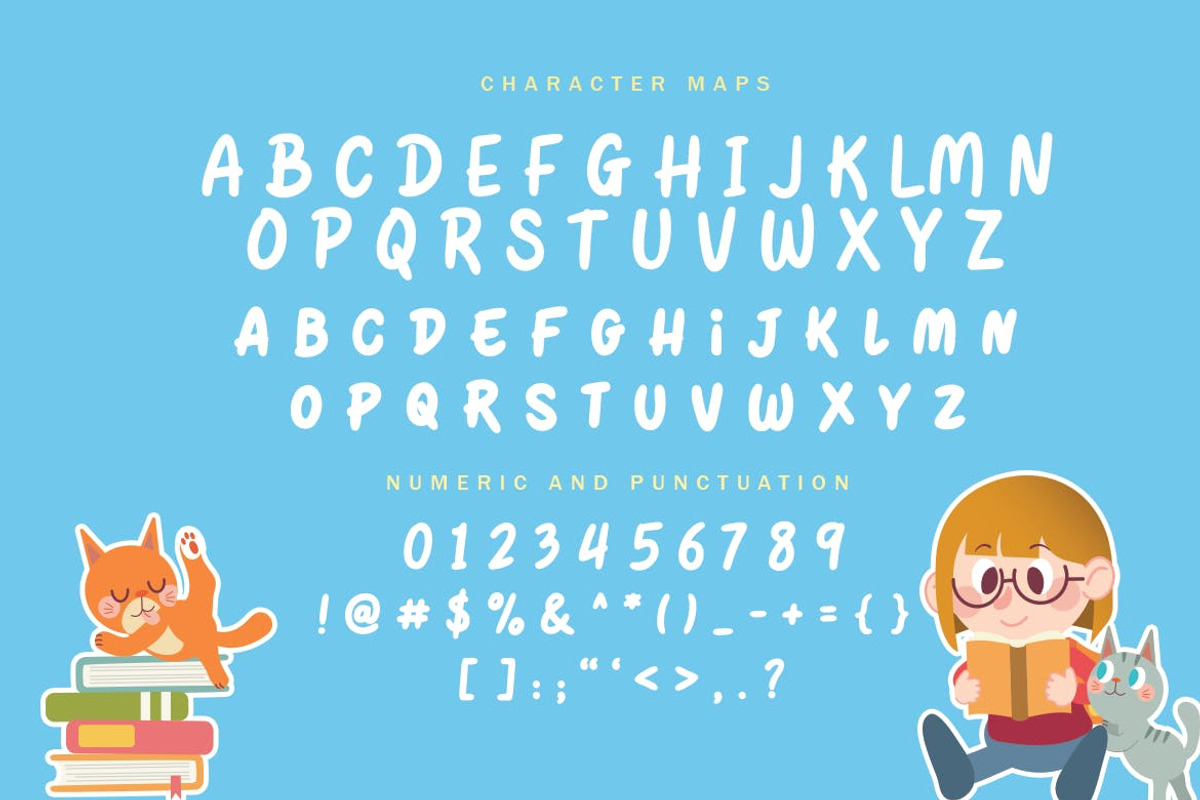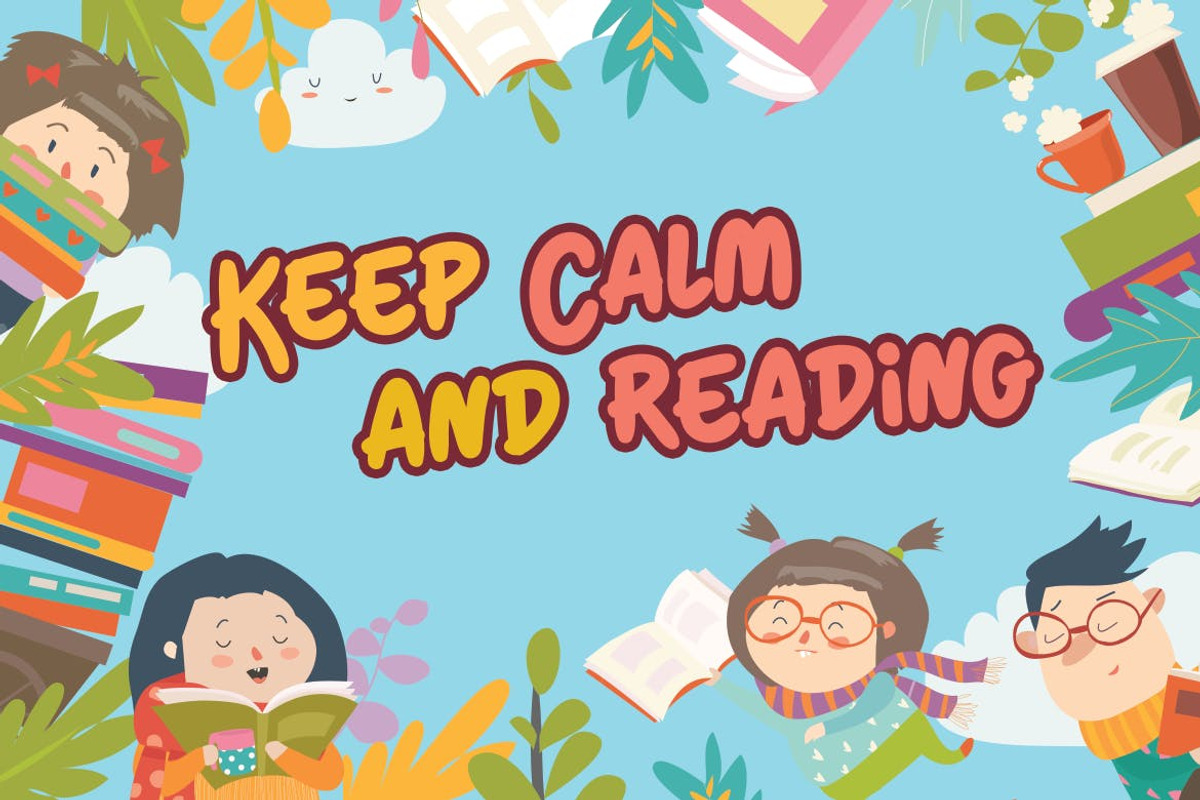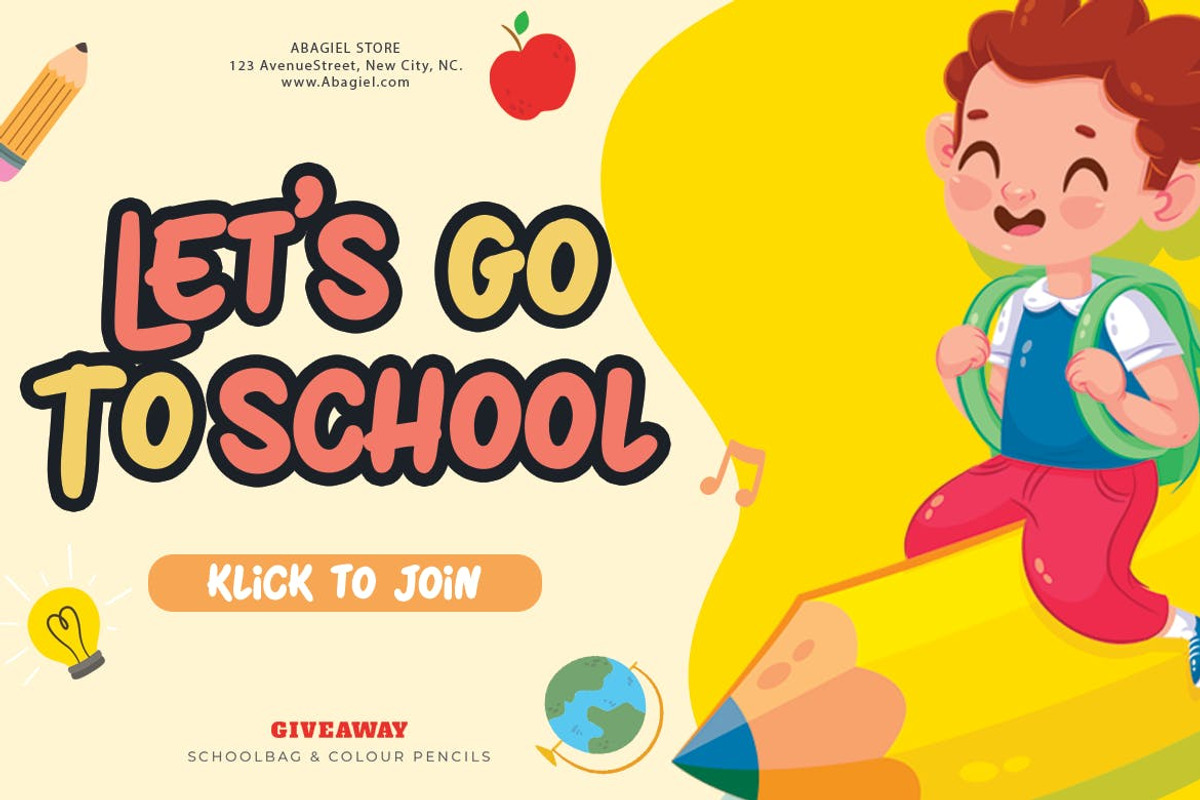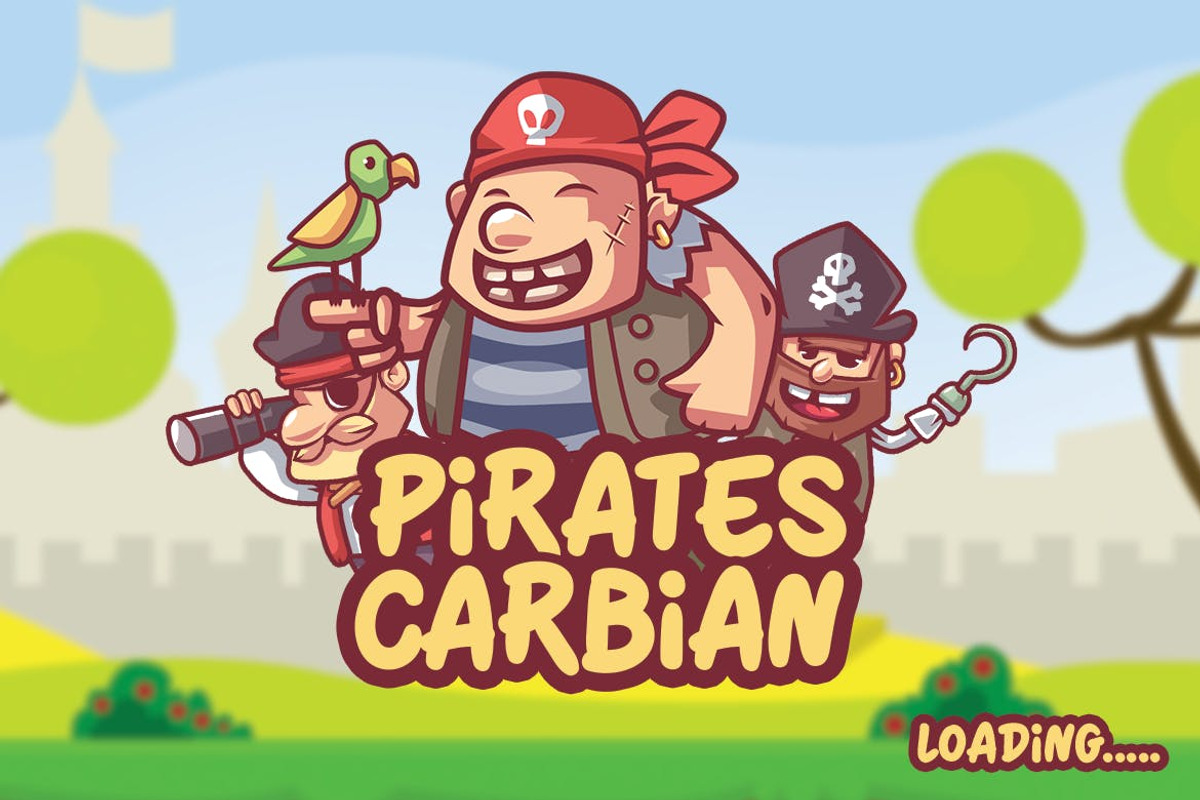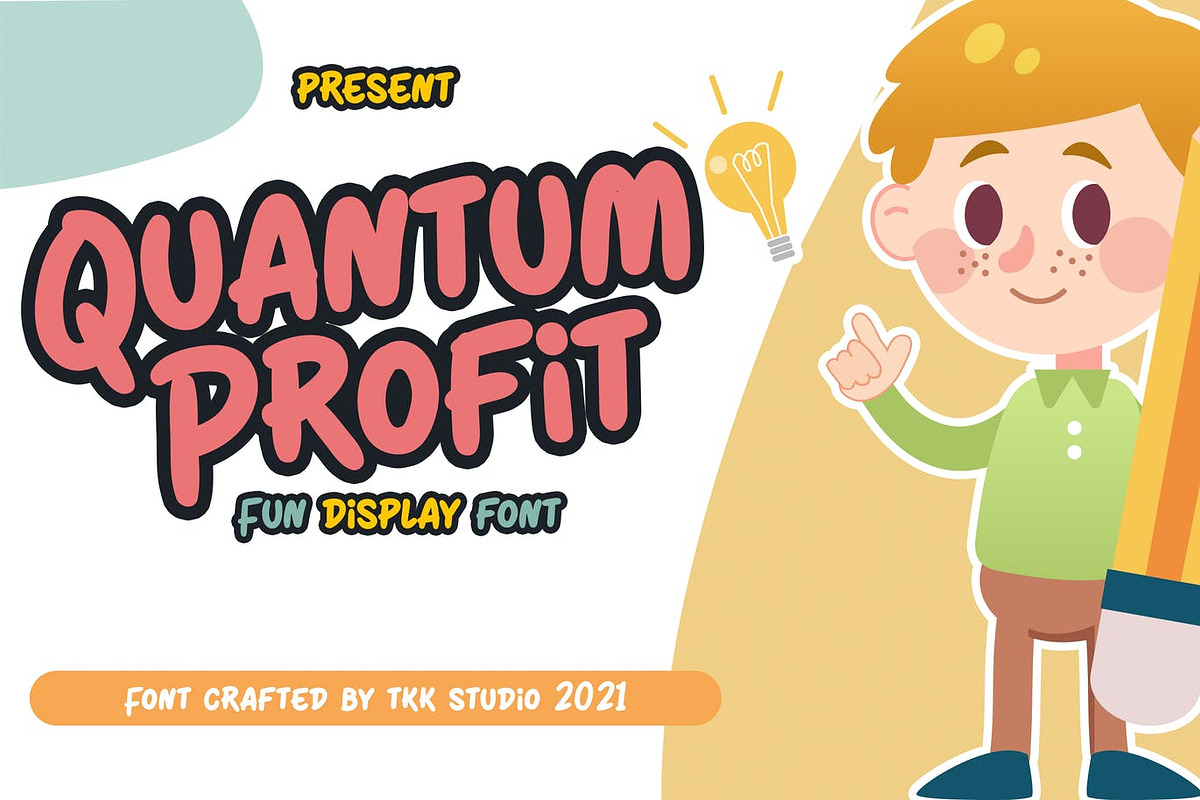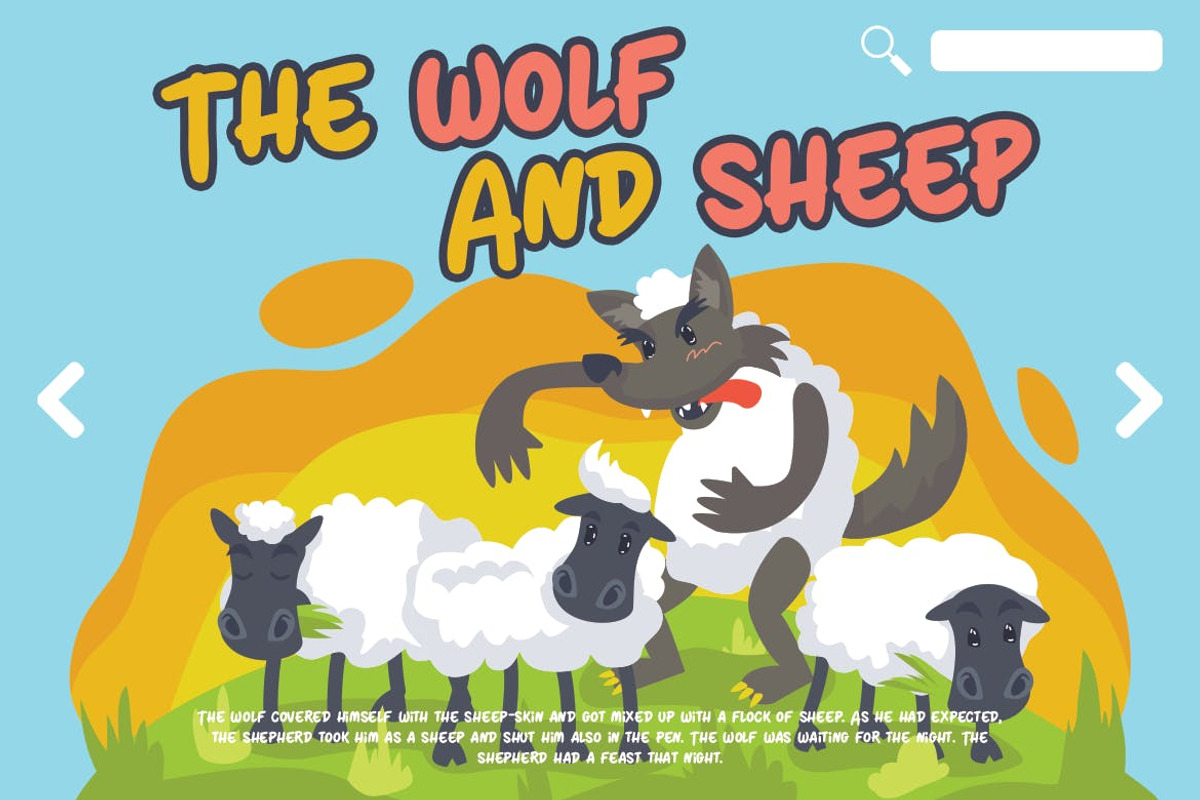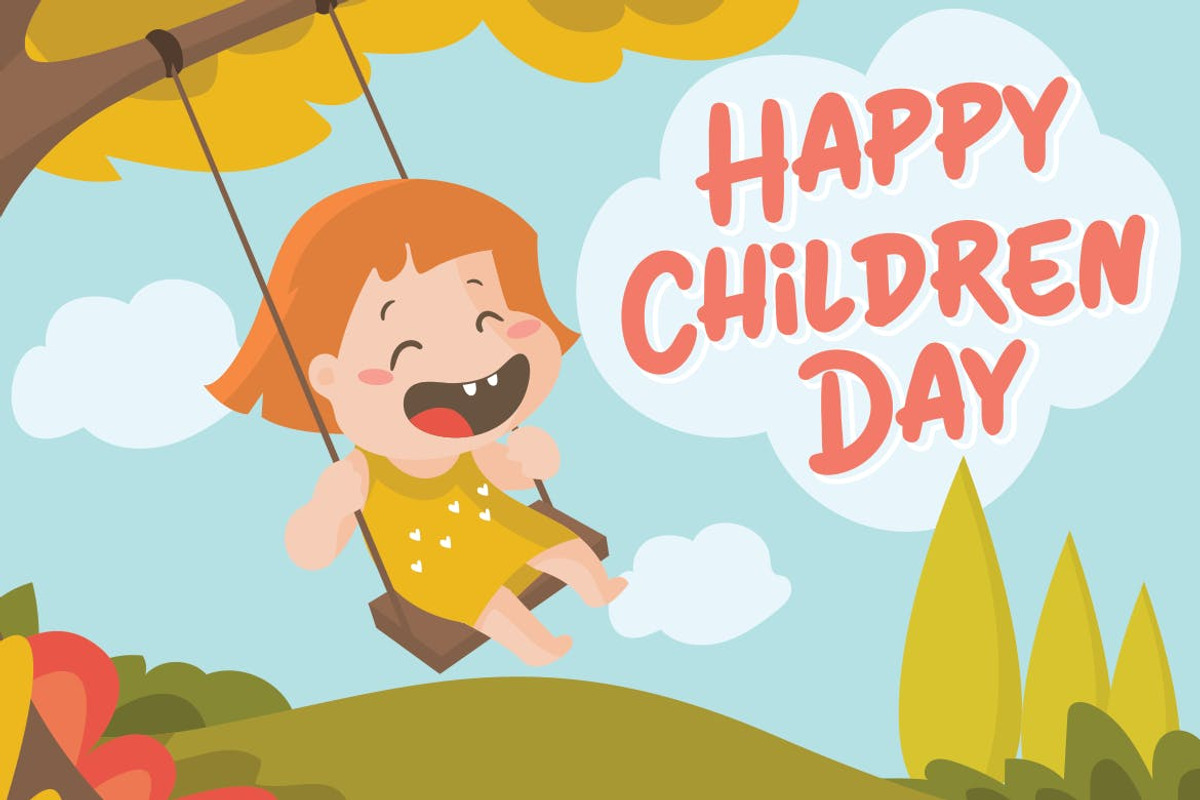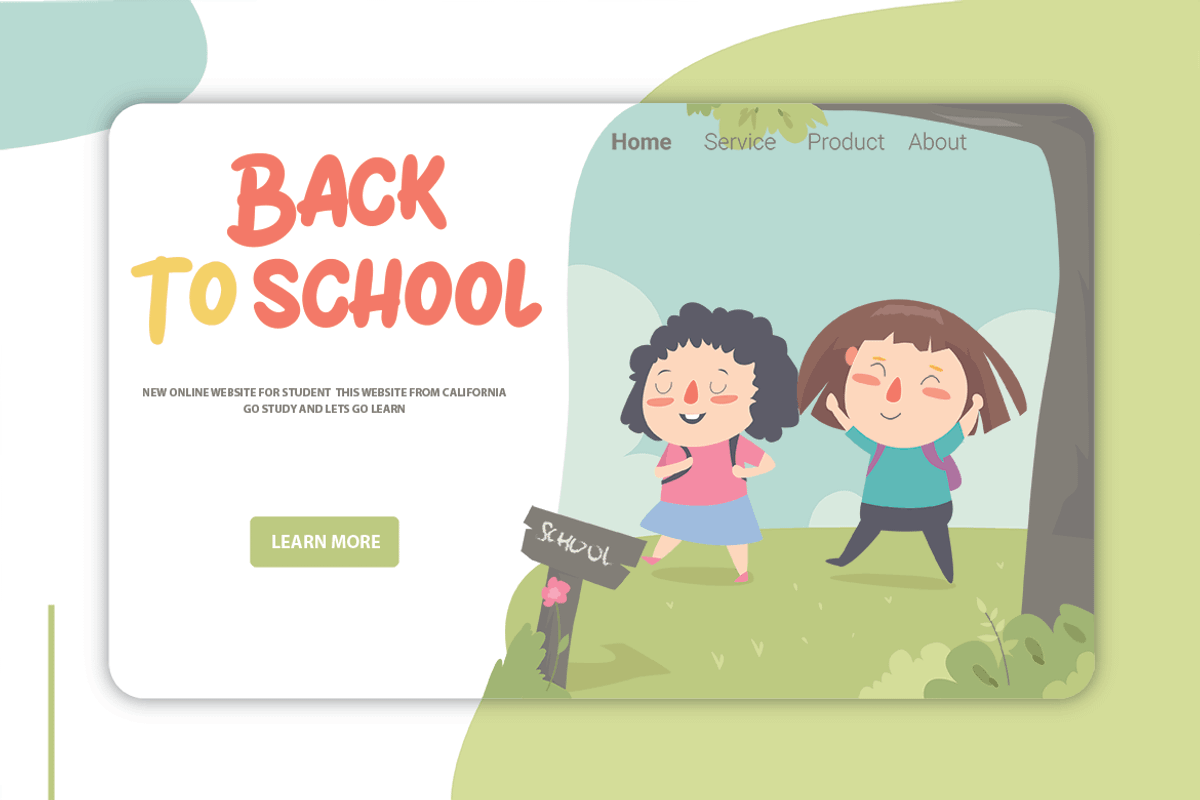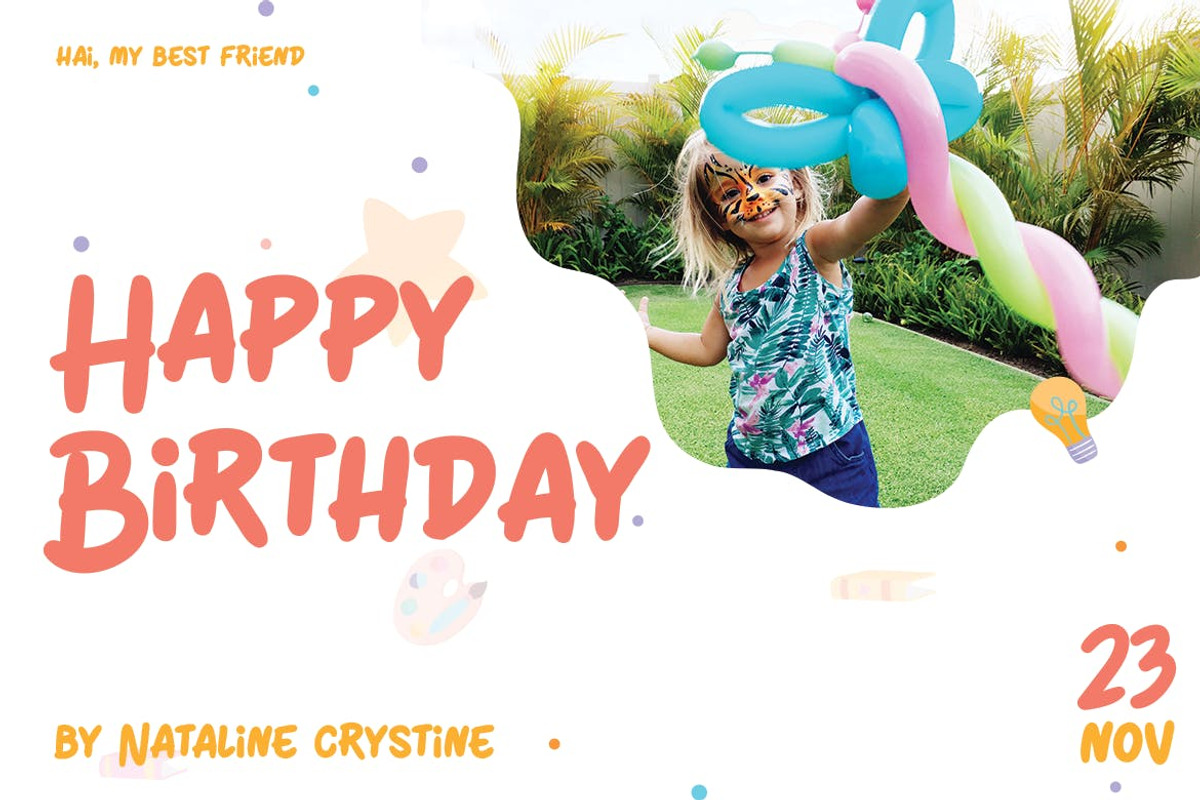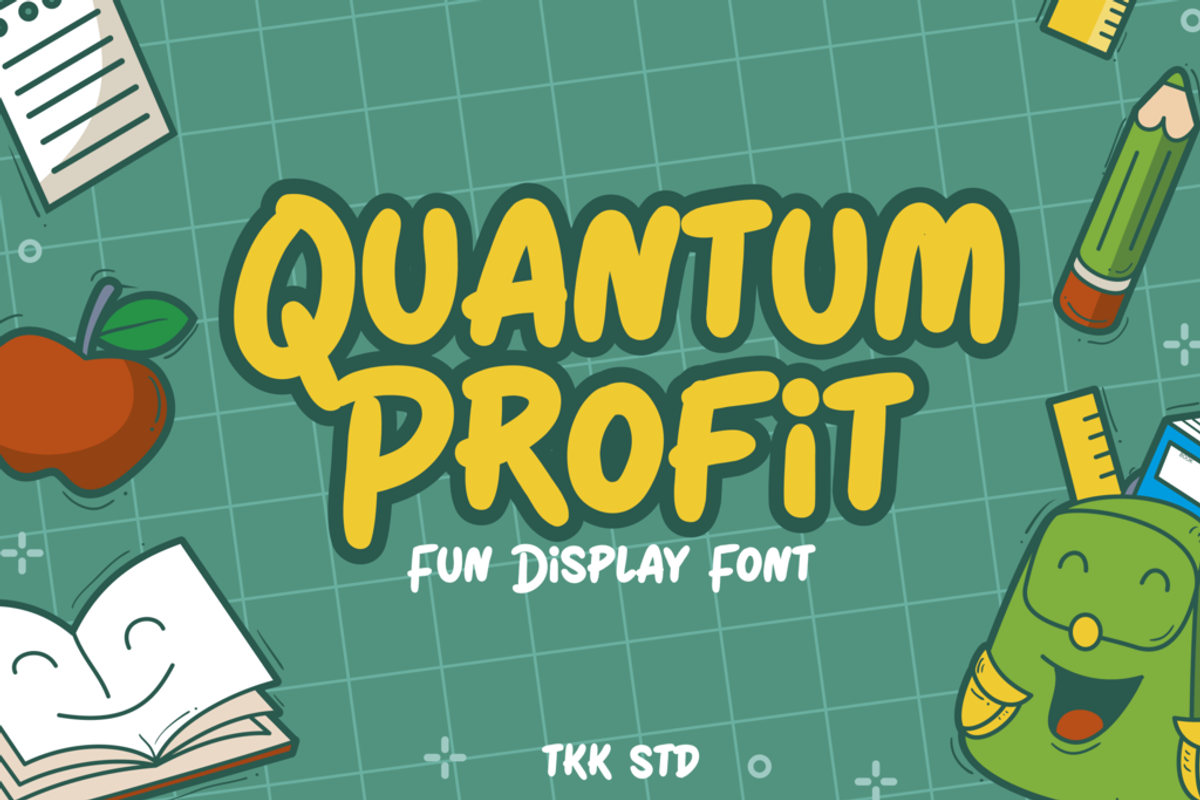
Quantum Profit - Display Font
Quantum Profit display font it’s an all caps. You will find its match perfectly when being used as a book title, display, game title, and children related wording.
Suit perfectly for children/ kids market, poster, movie title, magazine, youtube covers, youtube thumbnails, social media page covers and so on…